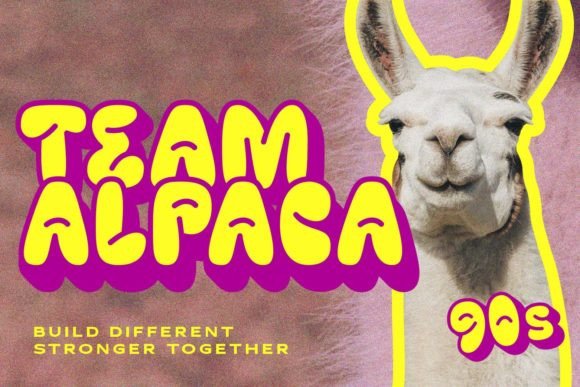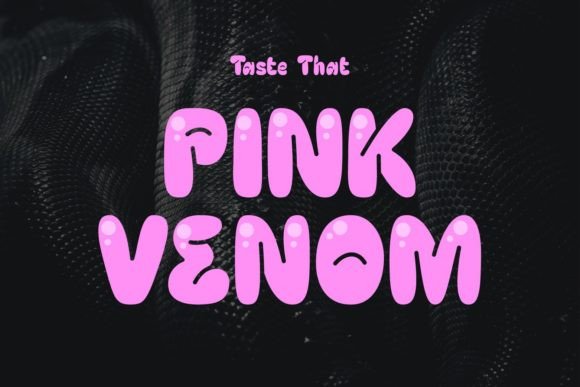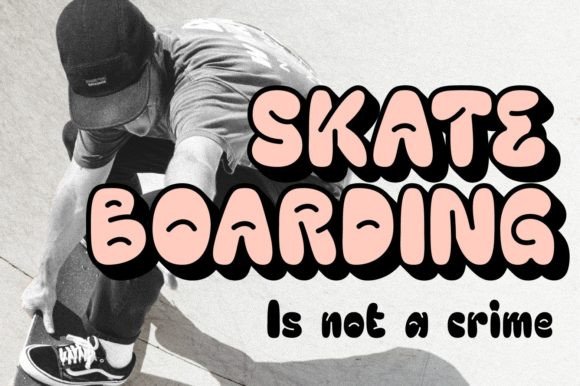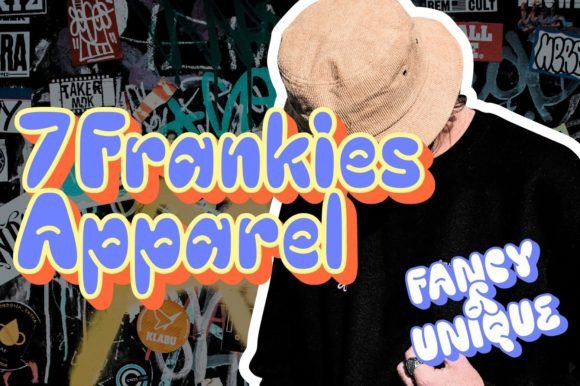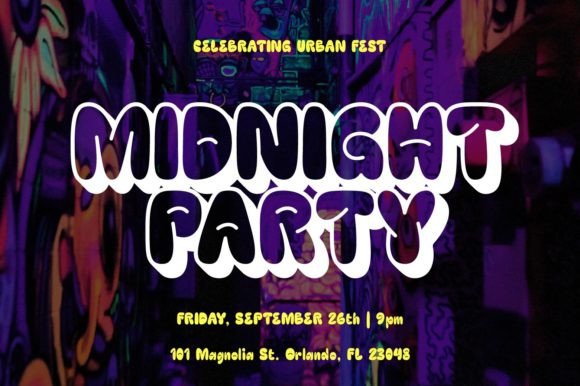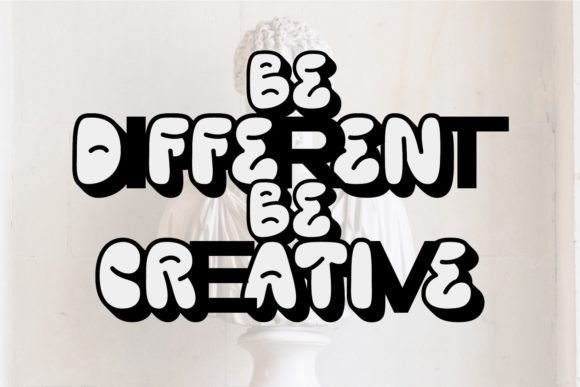
Introduction to Looks Happy Font
Have you ever stumbled upon the perfect font while brainstorming a creative project, and it instantly sparks a wave of inspiration? That’s exactly what happened when designers discovered the Looks Happy Font. This delightful display font has been a game-changer for designers seeking to add a touch of whimsy to their projects.
Looks Happy Font is more than just a pretty face; it’s a design resource that brings a smile to any layout. Its transparent background and high-quality design make it an excellent choice for designers looking to elevate their creative projects. With its playful charm, this font is perfect for adding a personal touch to social media graphics, blog posts, or even merchandise designs.
Whether you’re a seasoned designer or a hobbyist, the Looks Happy Font is a valuable addition to your design arsenal. And the best part? It’s available for free download, making it accessible to designers of all levels. So, what are you waiting for? Dive into the world of Looks Happy Font and discover the endless possibilities it has to offer.
Key Features of Looks Happy Font
- Unique, hand-drawn design perfect for creative projects
- High-quality font with transparent background for easy customization
- Perfect for use in graphic design, digital art, and other creative projects
- Easy to use and customize, making it a valuable design resource
Honest Review: Looks Happy Font
As a designer, I’m always on the lookout for high-quality design resources to elevate my creative projects. Recently, I came across the Looks Happy Font, and I’m excited to share my honest review with you.
What works well: ✨ The Looks Happy Font is incredibly versatile, with a range of playful and modern styles that can be used for everything from digital products to print materials. The font is also highly customizable, making it a great choice for designers who like to get creative with their typography.
Any limitations: ⚠️ While the Looks Happy Font is a great choice for many projects, it may not be suitable for more formal or traditional designs. Additionally, some users may find the font’s playful style to be too bold or overpowering.
Overall, I’m impressed with the Looks Happy Font’s versatility and high-quality design. It’s a great addition to any designer’s toolkit, and I’d highly recommend it for creative projects that require a modern and playful touch.
Getting the Most Out of Looks Happy Font
For optimal results, use the Looks Happy Font on a transparent background to create a clean and modern design. Experiment with different font sizes and styles to find the perfect fit for your project.
The Looks Happy Font is ideal for a variety of creative projects, including social media graphics, blog posts, and marketing materials. Its high-quality design and transparent background make it a popular choice among designers and non-designers alike.